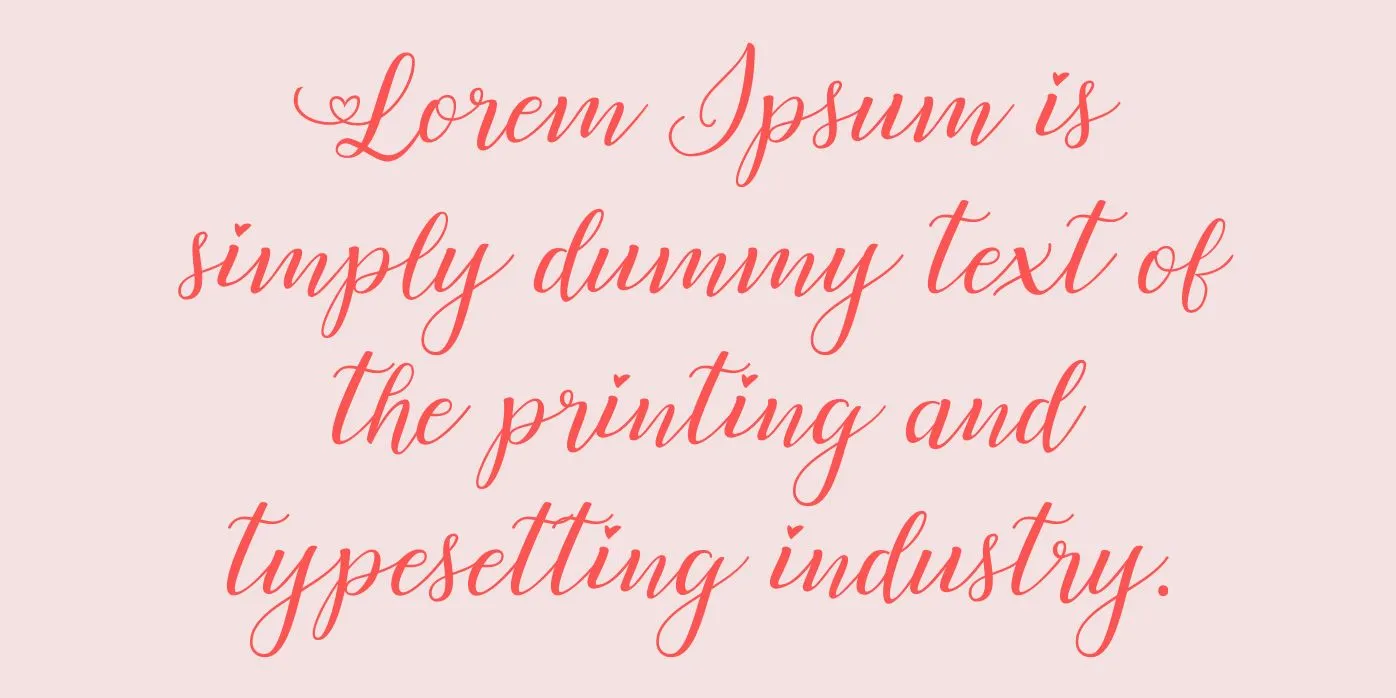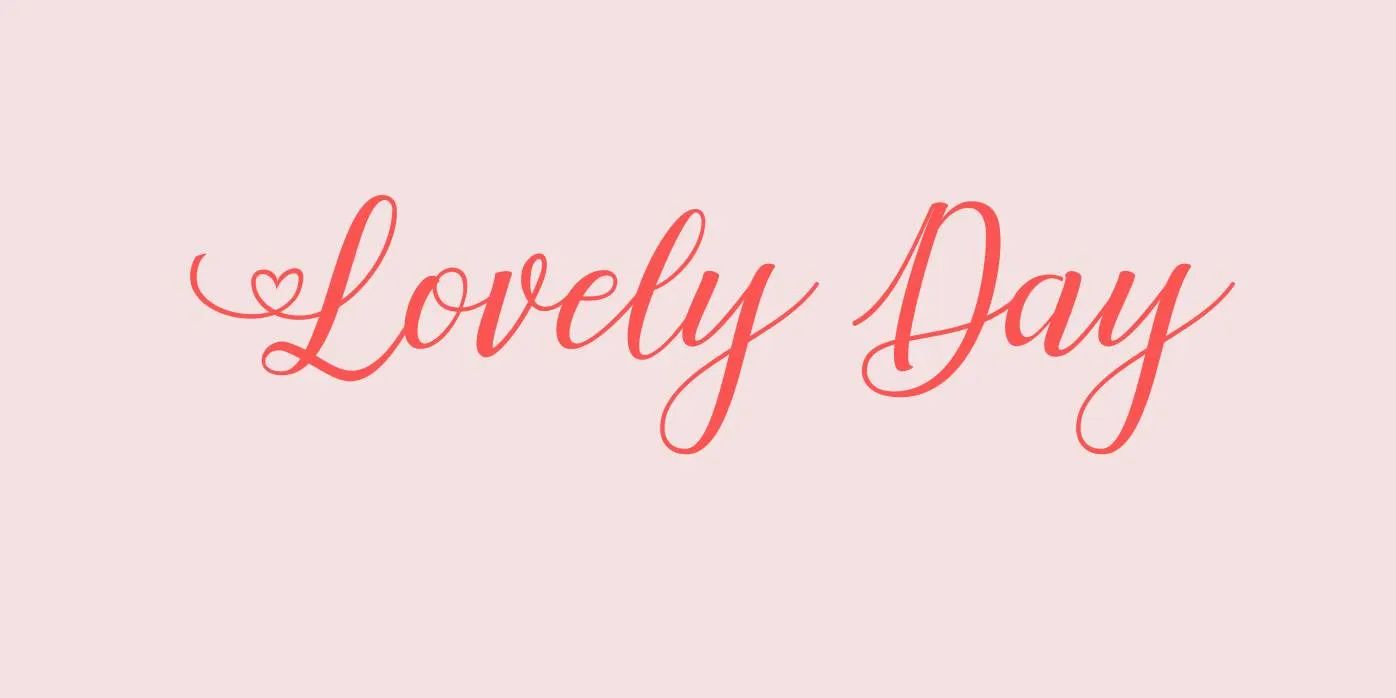
Lovely Day Font
Today we discuss detailed information about the Lovely Day Font. It is a very loveable and cute font. It was designed by Billy Argel and launched by Display Studios. Unicode 2.0 is supported by this font and BMP only. It contains 266 glyphs and 1000 units per Em.
Embedding rights are restricted in this font. The weight of the font is semi-light and the width of the font is medium (normal). Mac style followed by this font is Bold and the pattern followed by this font is Italic. The pitch of the font is not monospaced.
It has a very beautiful style of calligraphy with a modern touch which can make your project look more interesting. An online generator tool is also provided by this font to check your simple text online into a stylish look in less time. It can be downloaded on many devices such as Linux, and PC/Mac. It can be paired with other fonts to make an interesting project like it can be paired with salazar font to make different projects.